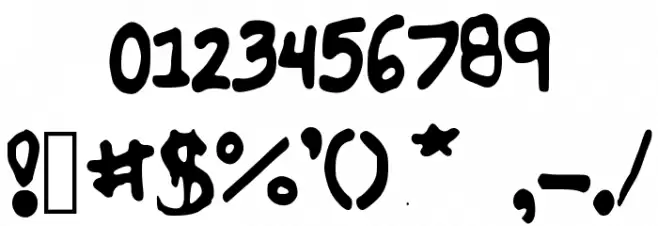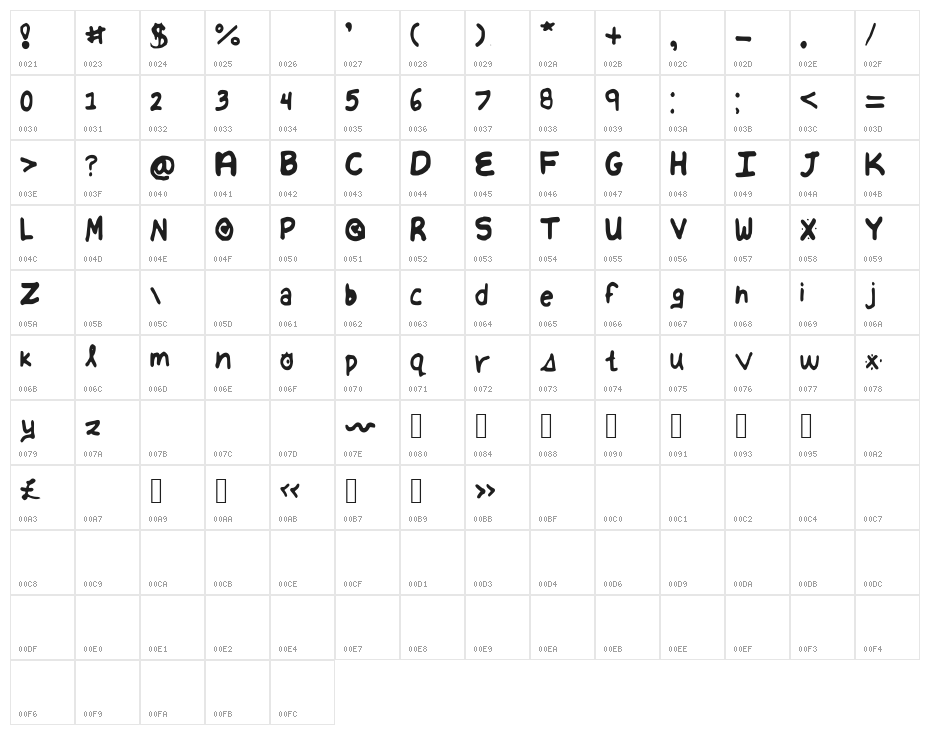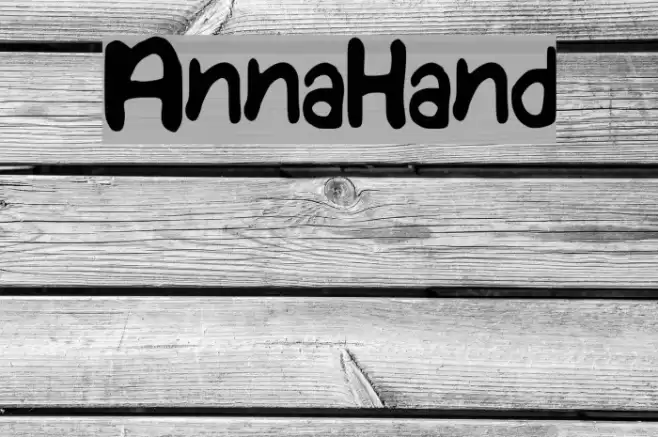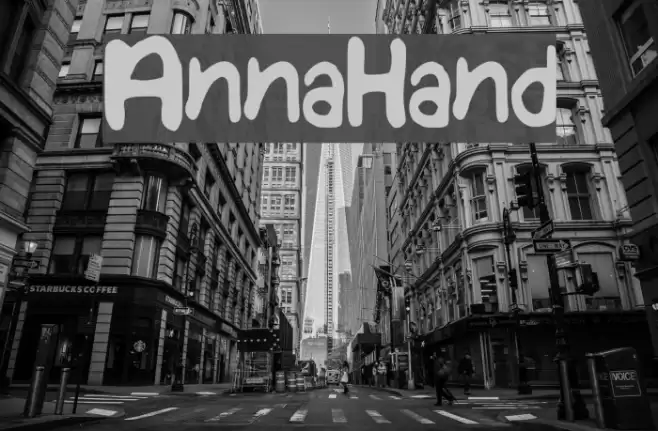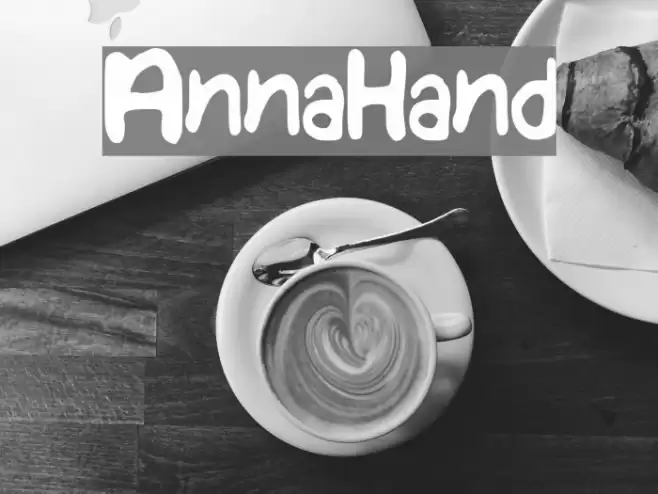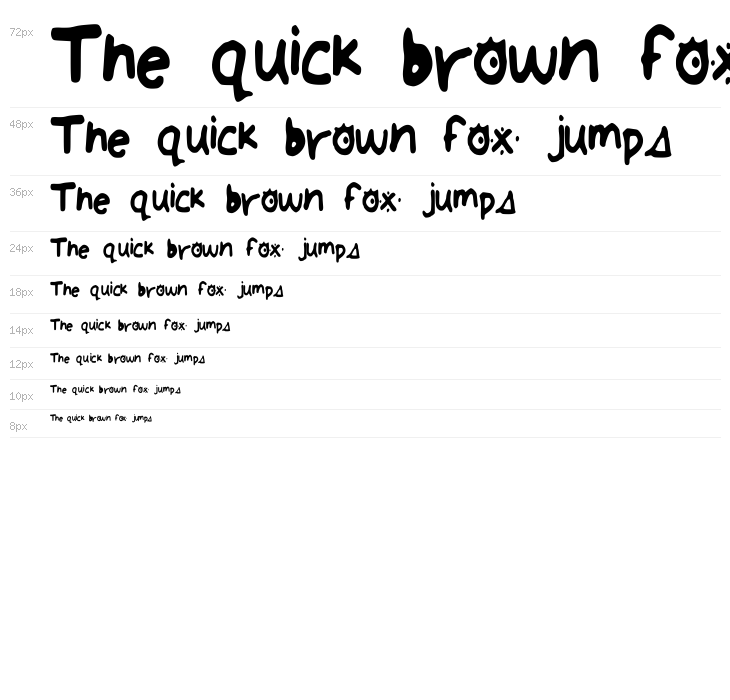
AnnaHand Font
AnnaHand Description
This font exhibits a playful and informal style, characterized by its bold and rounded letterforms. Each character appears hand-drawn, giving it a casual and friendly appearance. The strokes are thick and consistent, with a slight wobble that adds to the handmade feel. The uppercase and lowercase letters maintain a uniform width, while the numbers and special characters follow the same design principles, ensuring visual harmony across all elements. The font's unique personality makes it suitable for projects that require a touch of whimsy and creativity.